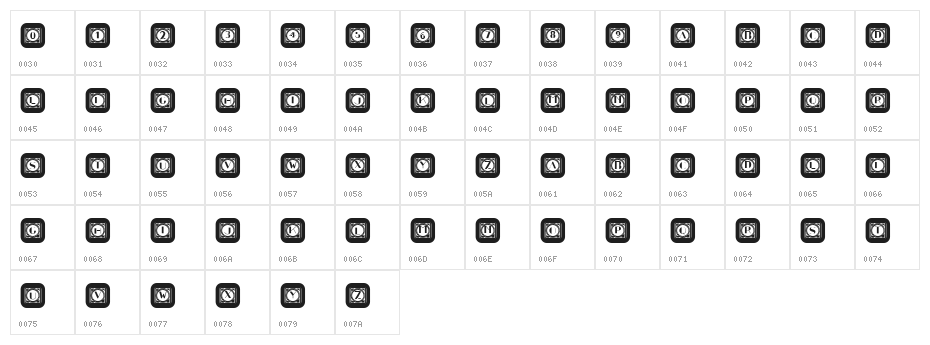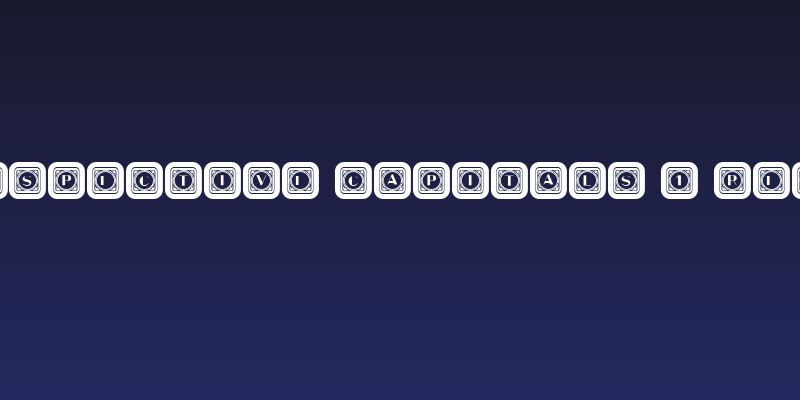
Retrospective Capitals 1 Regular Font
Retrospective Capitals 1 Regular Description
This font features a unique, decorative style with each character enclosed in a square frame. The letters and numbers are bold and have a vintage typewriter aesthetic, reminiscent of early 20th-century design. The characters are evenly spaced within their frames, providing a consistent and structured appearance. The font's intricate detailing and bold presence make it stand out, suitable for projects that require a touch of nostalgia or a retro vibe. The enclosed design adds a layer of complexity and visual interest, making it ideal for creative and artistic applications.
| Use Case | Logos, Posters, Creative projects |
| Proposed Projects | Ideal for retro-themed designs, posters, branding, and creative projects requiring a vintage touch. |